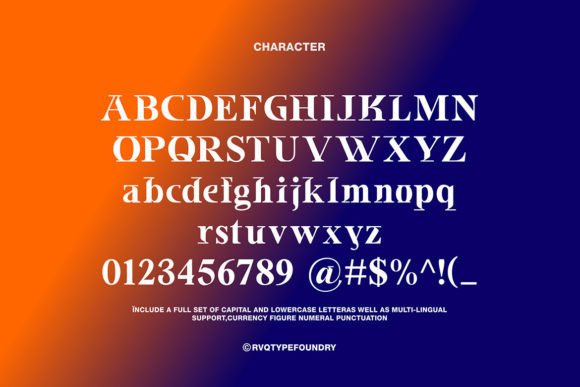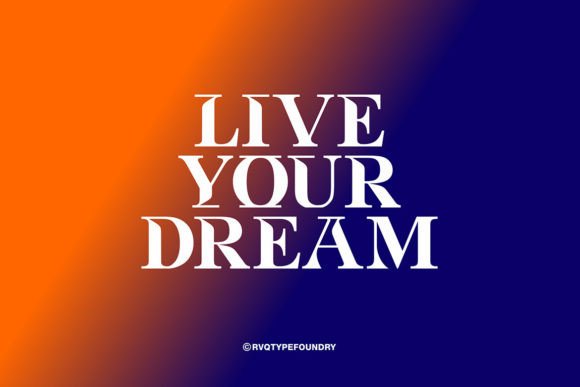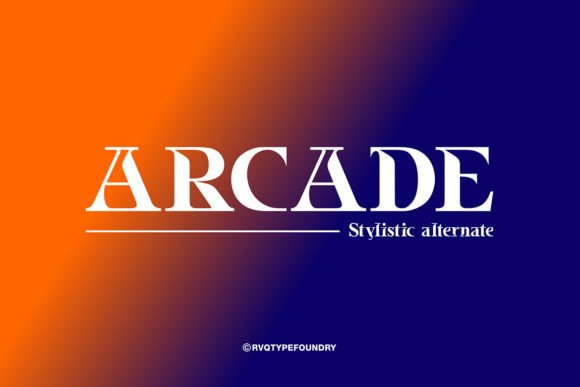
Introducing Ampera Font: Elevate Your Designs with Elegant Retro Flair
In the world of typography, fonts play a crucial role in conveying the tone and aesthetic of a design. For designers and crafters seeking to add a touch of elegance and retro charm to their projects, Ampera Font is an excellent choice. This versatile typeface boasts an elegant, retro vibe that’s perfect for a wide range of applications, from branding and advertising to packaging and digital media.
The Unique Charm of Ampera Font
Ampera Font’s distinctive character lies in its elegant, retro-inspired design. The font’s classic appeal is instantly recognizable, evoking memories of timeless typography from bygone eras. Yet, despite its vintage roots, Ampera Font feels remarkably contemporary, making it an ideal choice for designers looking to create unique and captivating designs.
Key Features of Ampera Font
So, what makes Ampera Font so special? Here are just a few of its key features:
- Complete set of capital and lowercase letters: Ampera Font includes a comprehensive set of uppercase and lowercase letters, ensuring that you have all the characters you need to create stunning text-based designs.
- Multilingual support: With Ampera Font, you can create designs that cater to a global audience. The font supports multiple languages, making it an excellent choice for international brands and designers.
- Currency symbols, numerals, and punctuation: Ampera Font includes a range of essential characters, such as currency symbols, numerals, and punctuation marks, allowing you to create complex designs with ease.
- Additional glyphs: To add an extra layer of creativity to your designs, Ampera Font comes with a selection of alternative glyphs. These glyphs can be used to create unique and eye-catching text-based elements.
Tips for Using Ampera Font
To get the most out of Ampera Font, try the following tips:
- Mix and match uppercase and lowercase letters: Combine uppercase and lowercase letters to create visually appealing text-based designs. This approach adds a touch of elegance and sophistication to your work.
- Experiment with alternative glyphs: Ampera Font’s alternative glyphs offer a wealth of creative possibilities. Don’t be afraid to experiment and try out different combinations to find the perfect look for your design.
- Pair Ampera Font with complementary fonts: For added visual interest, try pairing Ampera Font with complementary fonts. This approach can help to create a unique and captivating design that stands out from the crowd.
Who Can Benefit from Ampera Font?
Ampera Font is an excellent choice for a wide range of designers and crafters, including:
- Graphic designers: Whether you’re working on branding, advertising, or packaging projects, Ampera Font is an excellent addition to your typographic toolkit.
- Digital media professionals: For designers working on digital media projects, such as websites, social media graphics, or email campaigns, Ampera Font offers a versatile and elegant solution.
- Crafters and makers: If you’re a crafter or maker looking to add a touch of elegance to your projects, Ampera Font is an excellent choice. Use it to create stunning text-based elements, such as labels, signs, or cards.
In conclusion, Ampera Font is a versatile and elegant typeface that’s perfect for designers and crafters seeking to add a touch of retro charm to their projects. With its complete set of capital and lowercase letters, multilingual support, currency symbols, numerals, punctuation, and additional glyphs, Ampera Font offers everything you need to create stunning text-based designs. Whether you’re a graphic designer, digital media professional, or crafter, Ampera Font is an excellent addition to your toolkit.